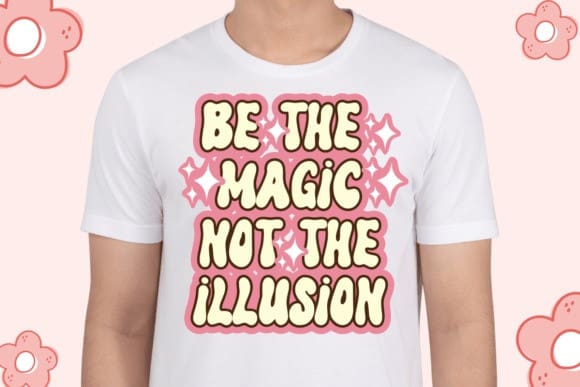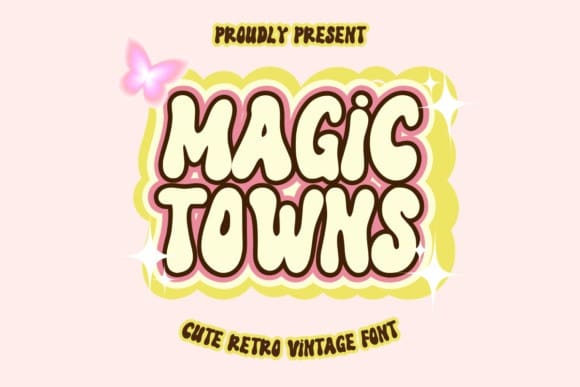
Magic Towns Font
Magic Towns Font is a cute retro and vintage font, it’s perfect for designs that need a playful, cheery accent. MagicTowns is suitable for book covers, posters, packaging, merchandise, logotypes, and many more!